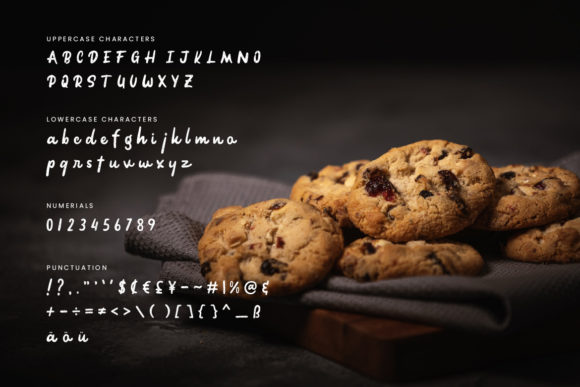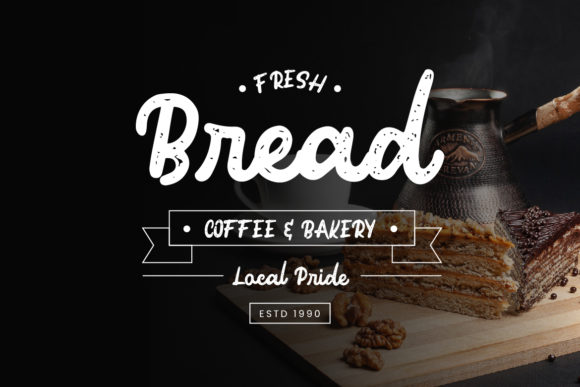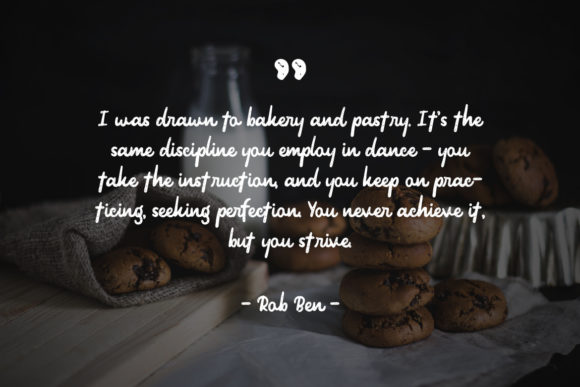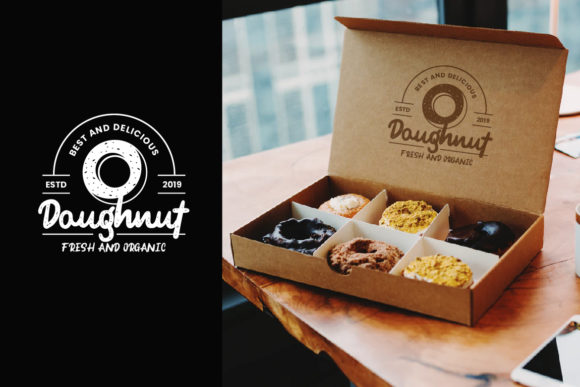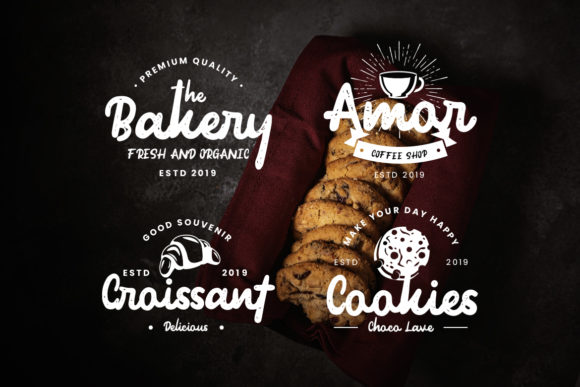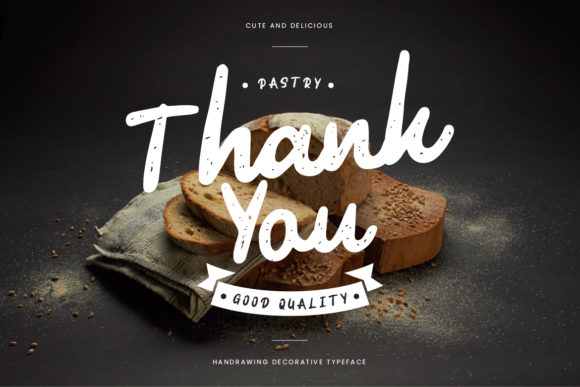
Pastry Font
About Pastry Font
Pastry is a flowing, thick lettered handwritten font. Fall in love with its incredibly versatile style and use it to create spectacular designs!